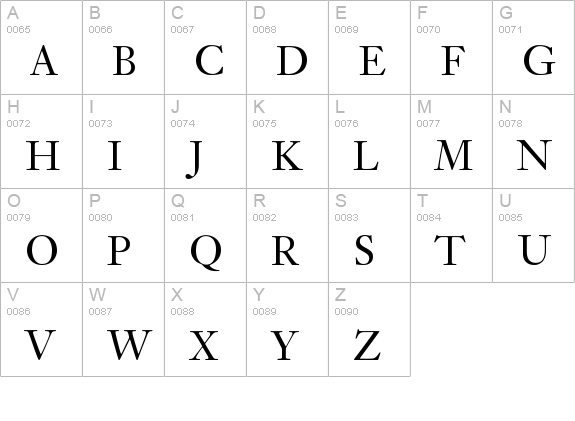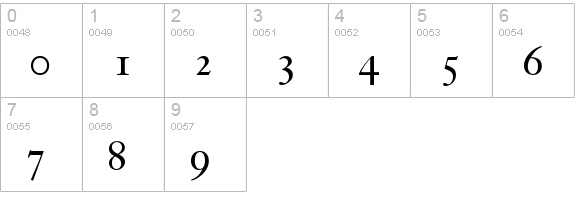
Introducing Janson OldStyle SSi Small Caps, a timeless and elegant font that exudes sophistication and grace. With its refined serifs and perfectly balanced proportions, this typeface captures the essence of classic typography. Janson OldStyle SSi Small Caps is meticulously designed to elevate any design project, from elegant invitations to professional presentations. Its small caps variant adds a touch of distinction, making it ideal for headings and titles. This font's versatility knows no bounds, effortlessly complementing both traditional and modern design styles. Its legibility ensures that every letter is crystal clear, whether it's used in print or on digital platforms. But what truly sets Janson OldStyle SSi Small Caps apart is that it is available for free. Yes, you read that right! You can freely download this magnificent font at FontsMarket.com. Embrace the beauty and sophistication of Janson OldStyle SSi Small Caps without any cost. So why wait? Elevate your design projects with this timeless font that is freely available to download at FontsMarket.com. Experience the elegance and versatility of Janson OldStyle SSi Small Caps and let your creativity soar.